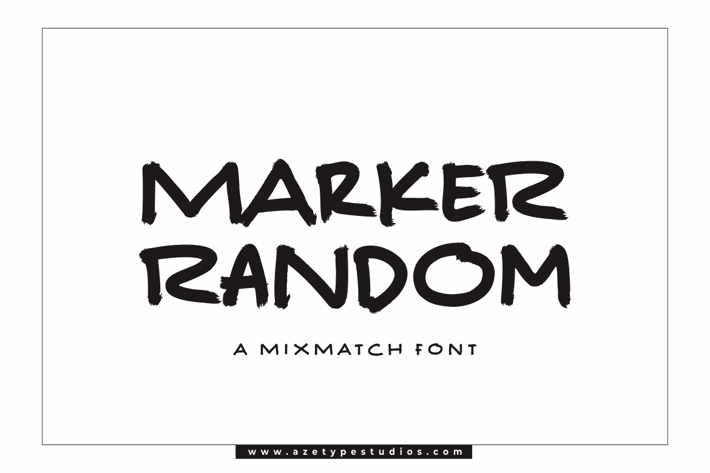
Marker Random
Introducing, Marker Random is a mixmatch font with the casual style suitable for your design project needs, such as; social media posts, your quotes, overlays on images, tagline logos, posters, print needs, website banners, and more.
A set of uppercase and lowercase glyphs
Number, symbol, and punctuation
Multilingual accent ( ́ ̂ ̀ ̊ ̈ ̃ ̄ ̌ ̆ ̨ ̧ ̇ ̋ ̒ ̦ ̍ ̶ )
Some multilingual glyphs (ÆØŒæðøœß¡¿)